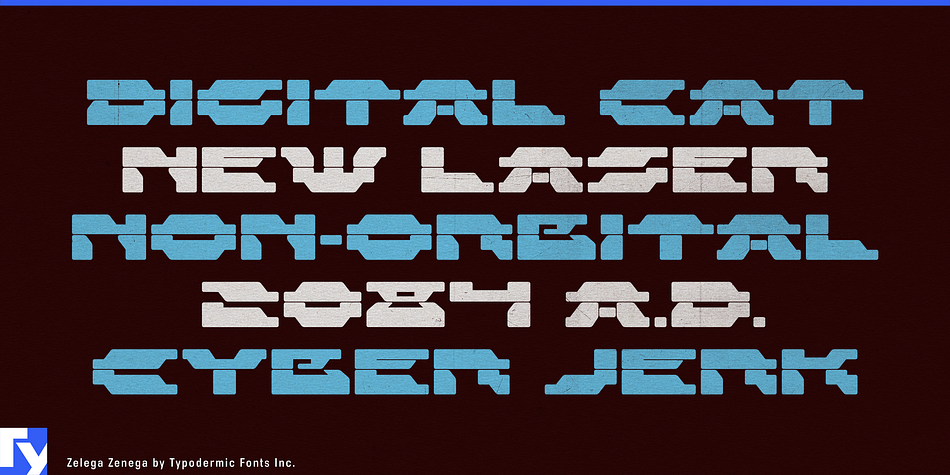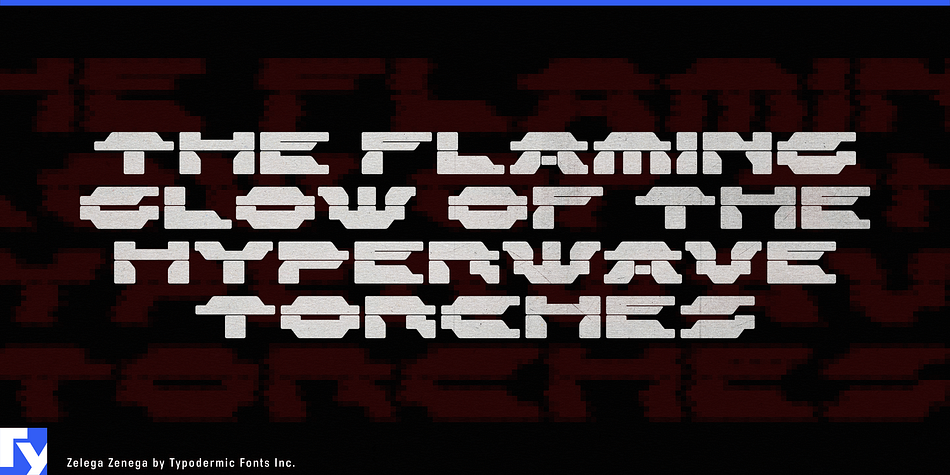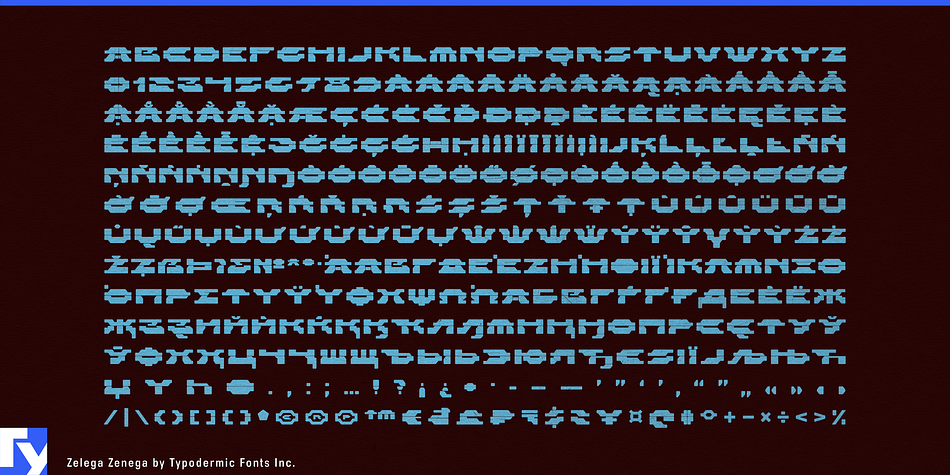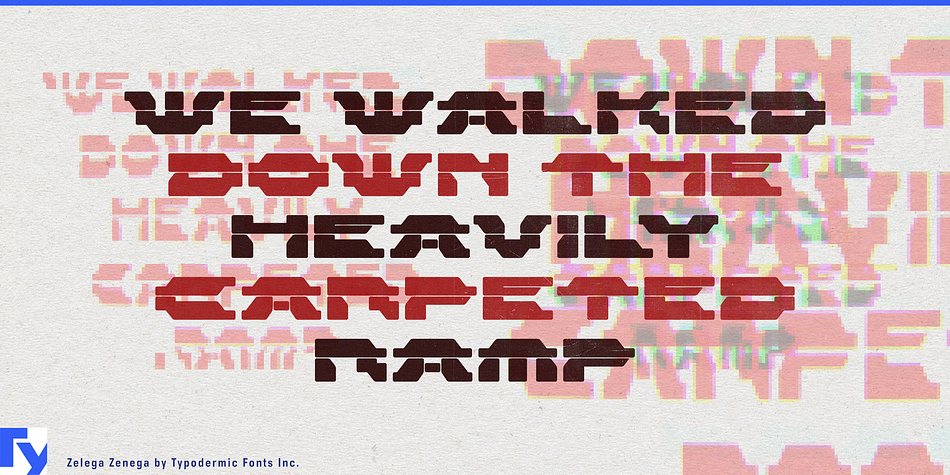
Designed by Ray Larabie, Zelega Zenega is a novelty font published by Typodermic Fonts Inc.
Zelega Zenega is a wide, stark, industrial display typeface. Almost all current Latin based languages are supported, including Vietnamese, Cyrillic languages and Greek.
Style | Novelty |
Designer | Ray Larabie |